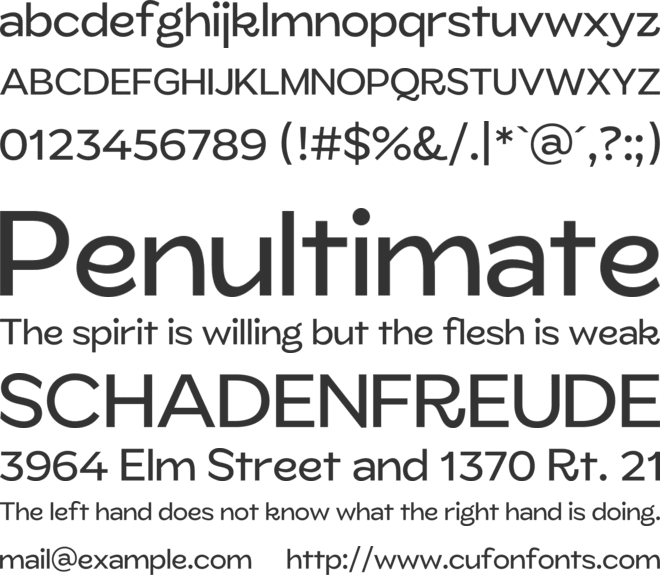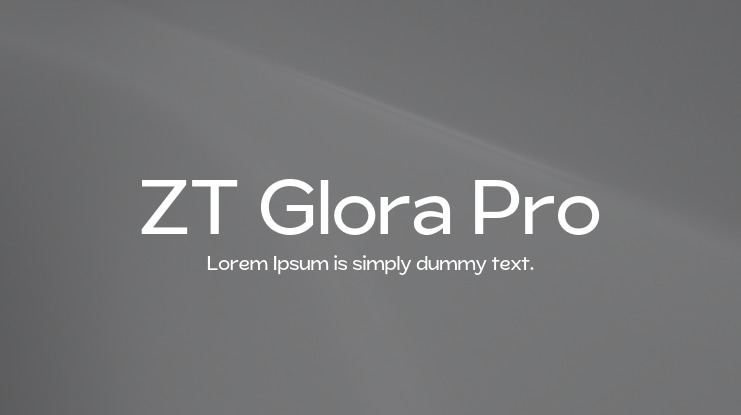
ZT Glora Pro Font Family
Glora Pro marks a new chapter in the Glora series, meticulously crafted to elevate your design projects. Originally released in 2020, Glora has been completely reimagined, expanding from 6 to 56 styles with precise improvements in kerning, weight stability, and overall refinement.
Key Features:
• 56 Styles: Offers a wide array of design possibilities.
• 4 Variant Varieties: Normal, Semi Expanded, Extra Expanded.
• 7 Weights & Italic: Ranges from Light to Bold, providing flexibility in design.
• Multi-Language Support: Ideal for global projects with extensive language coverage.